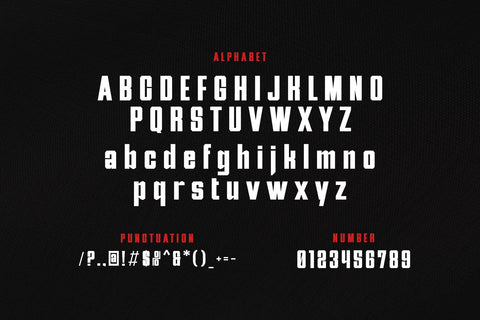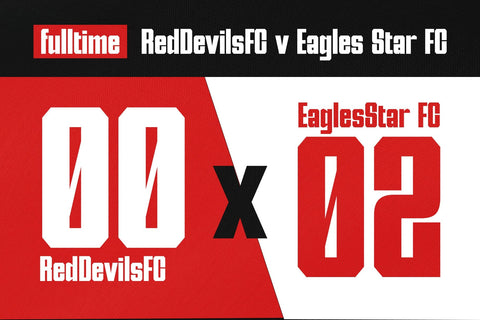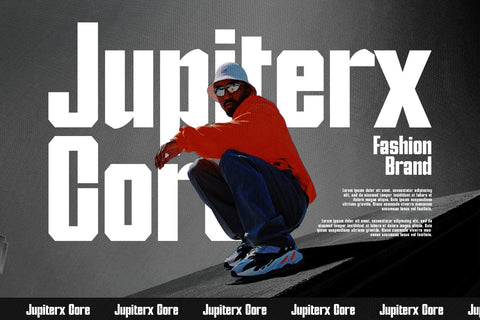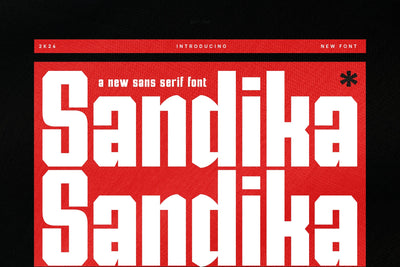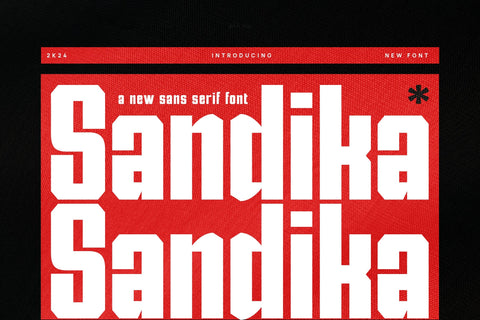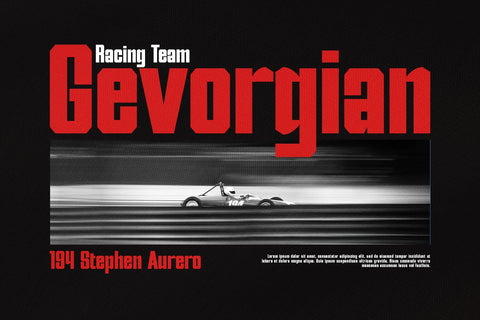
Sandika - Modern Sans Serif Font
Introducing our new Sandika, modern sans serif font with elegant style this is perfect for branding, logos, invitation, magazines, product packaging and more.